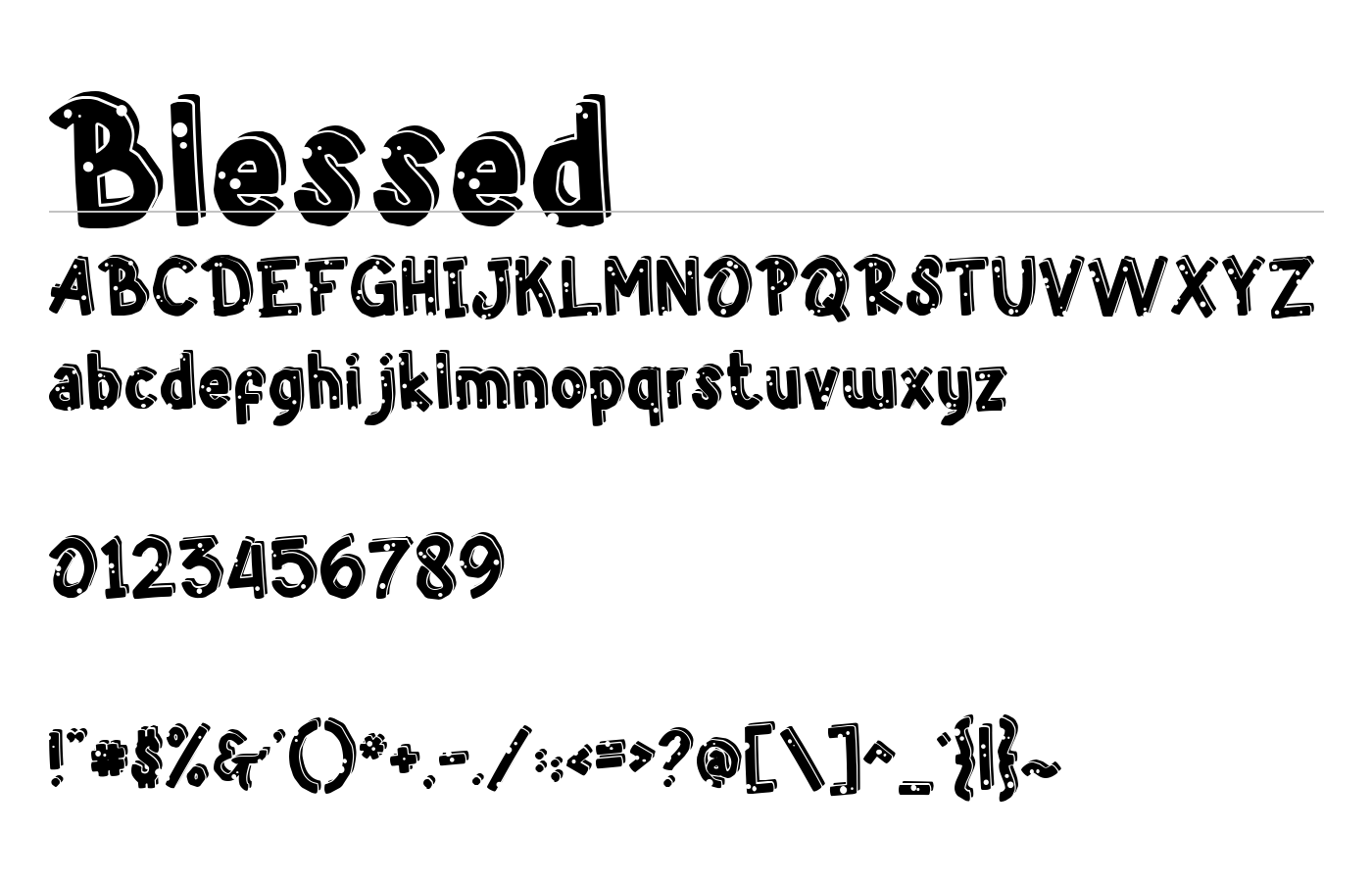
Blessed Font is a playful and bold sans serif with a hand-drawn, slightly quirky character. Its chunky letterforms feature uneven strokes and creative irregularities that add a fun, casual vibe, making it perfect for informal designs, children’s projects, or creative branding where personality and approachability are key. This font works best for headlines, posters, and packaging that benefit from a lively and energetic style.
Blessed Font
About Blessed Font